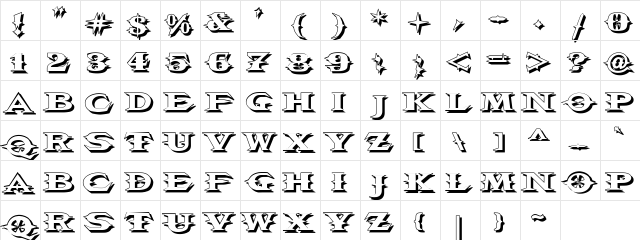
VTCBelialsBladeShadow Regular Font Preview
VTCBelialsBladeShadow Regular
VTCBelialsBladeShadow Regular Font Details
| Designer | WolfBainX |
Design Context for VTCBelialsBladeShadow Typeface
VTCBelialsBladeShadow brings ornamental detail and strong personality to headlines and identities, where visual impact matters more than quiet functionality.
Font Pairing: Pair with a clean neutral sans-serif for body copy to let VTCBelialsBladeShadow's character lead without overwhelming the composition.
Pro Tip: Treat VTCBelialsBladeShadow as the centrepiece of your typographic hierarchy. One strong heading set in a decorative face can carry an entire layout.